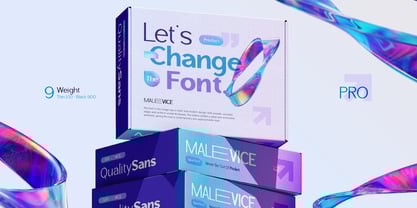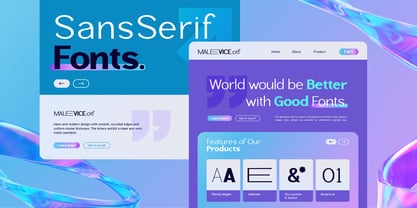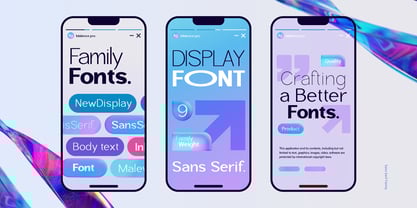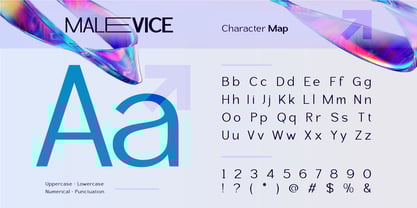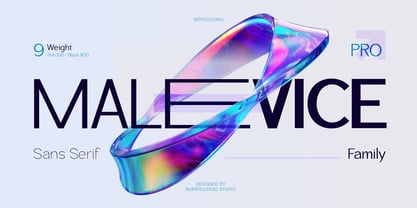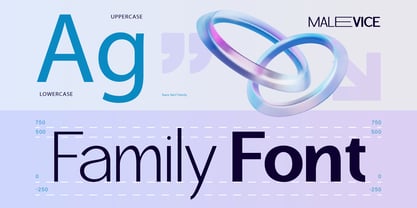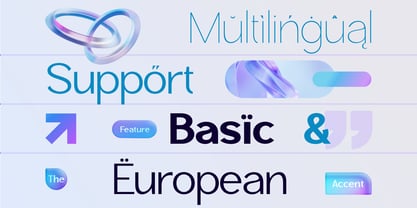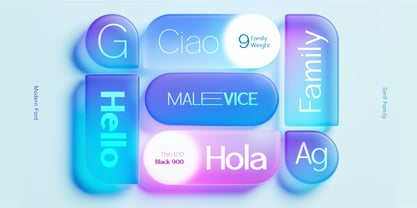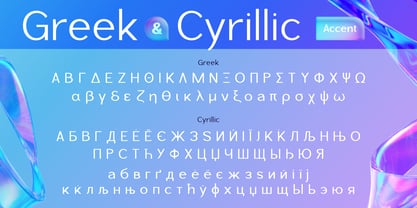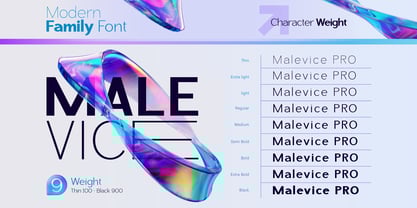
Malevice pro
by Burntilldead
The Malevice pro Font Family was designed by Eric Kurniawan and published by Burntilldead. Malevice pro contains 9 styles and family package options.
Introducing Malevice Pro, a sans-serif font that perfectly blends modern style and flexibility. With its clean, balanced, and professional look, this font is a great choice for all kinds of design projects.
Malevice Pro comes in 9 weights, from Thin to Black, giving you the flexibility to create anything from sleek and minimal designs to bold and powerful visuals. Plus, it features unique alternates that make your designs stand out while keeping them easy to read.
Perfect for:
- Branding & Logo Design
- UI/UX & Web Design
- Posters & Brochures
- Editorial & Magazines
- Motion Graphics & Video Titles
- Presentations & Business Designs
Malevice Pro also supports multiple languages, including Cyrillic and Greek alphabets, making it a great fit for global projects.
Features:
• A - Z set (Uppercase & Lowercase)
• Number
• Punctuation
• Alternates
• Multilingual